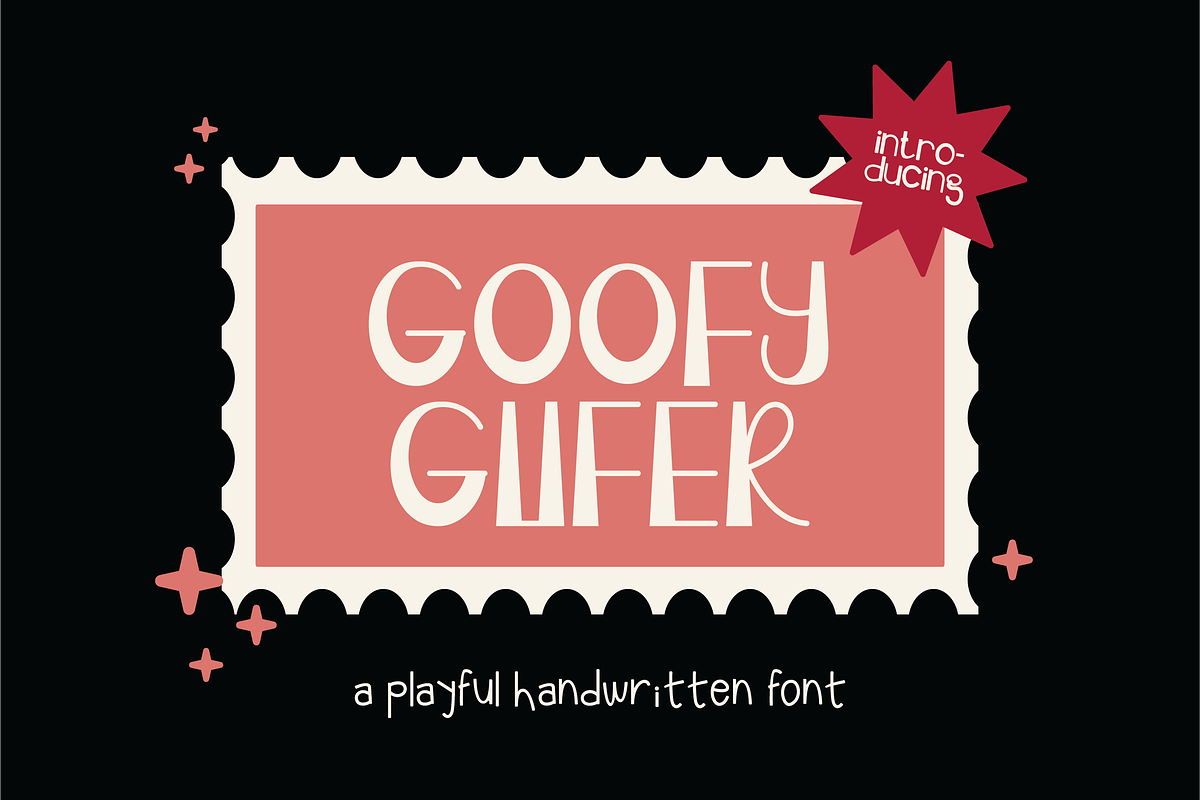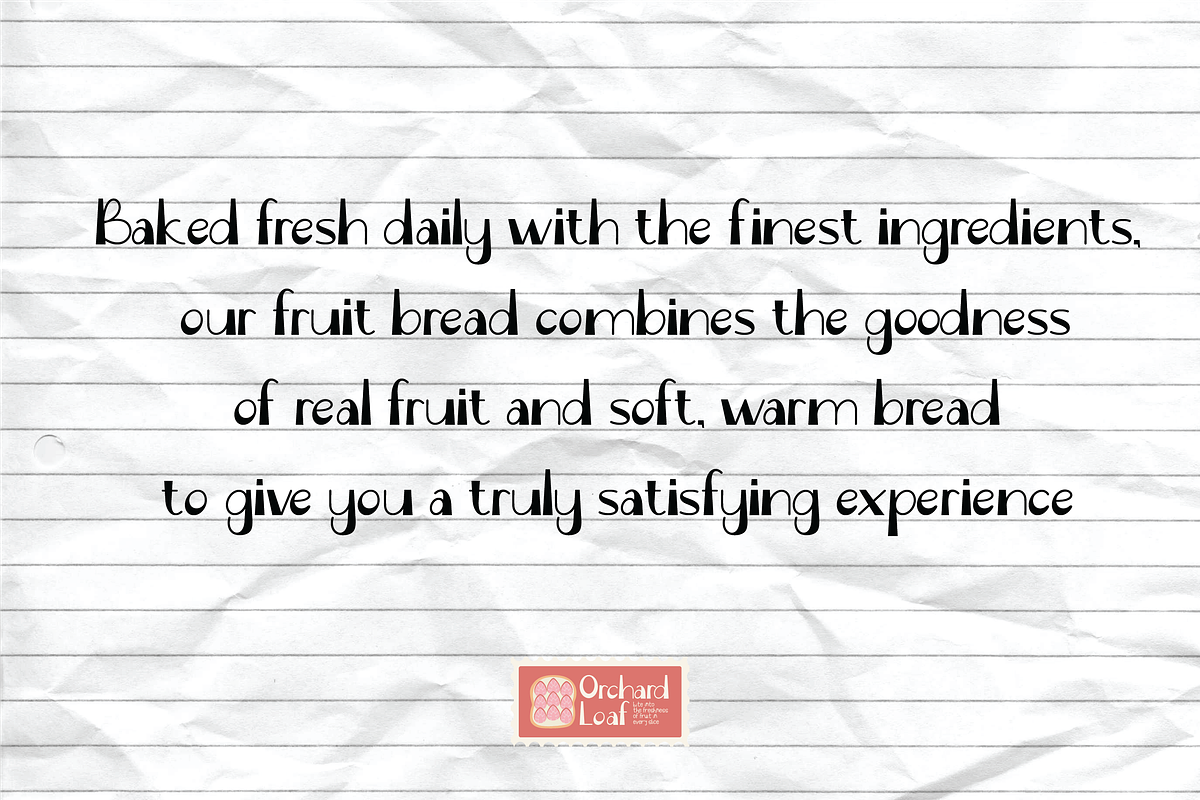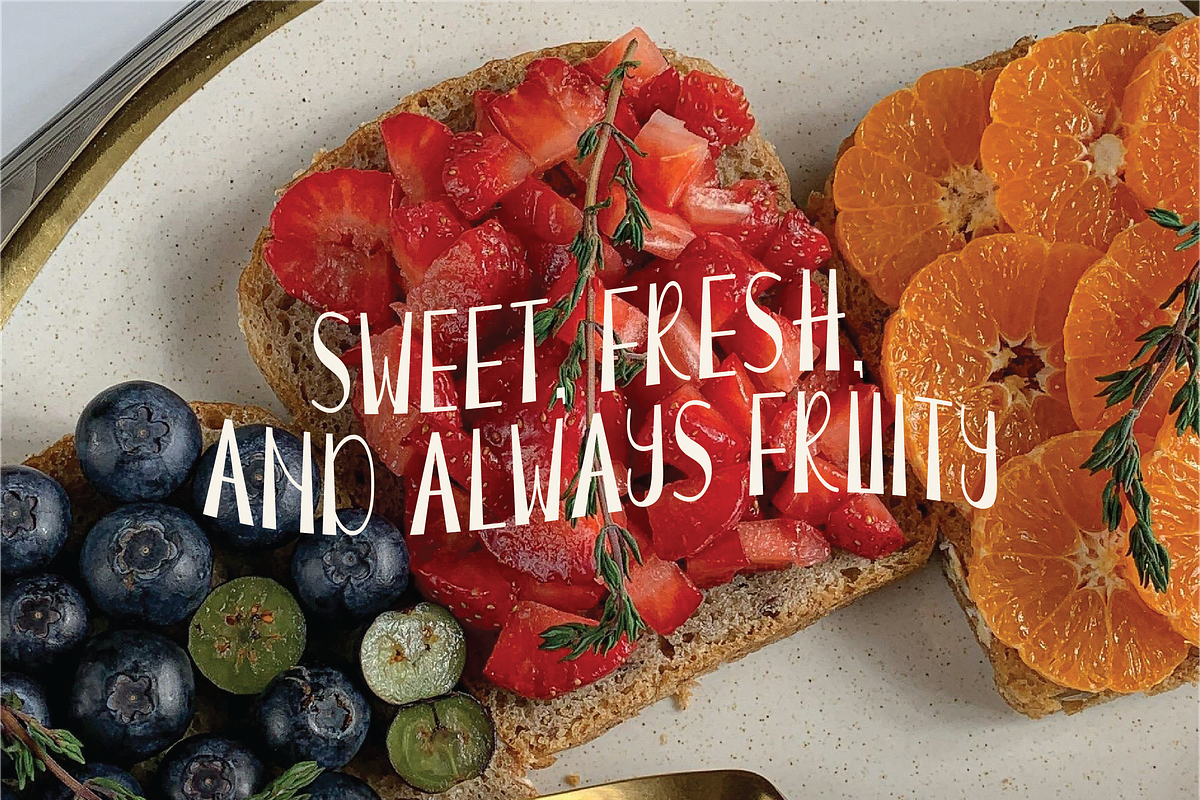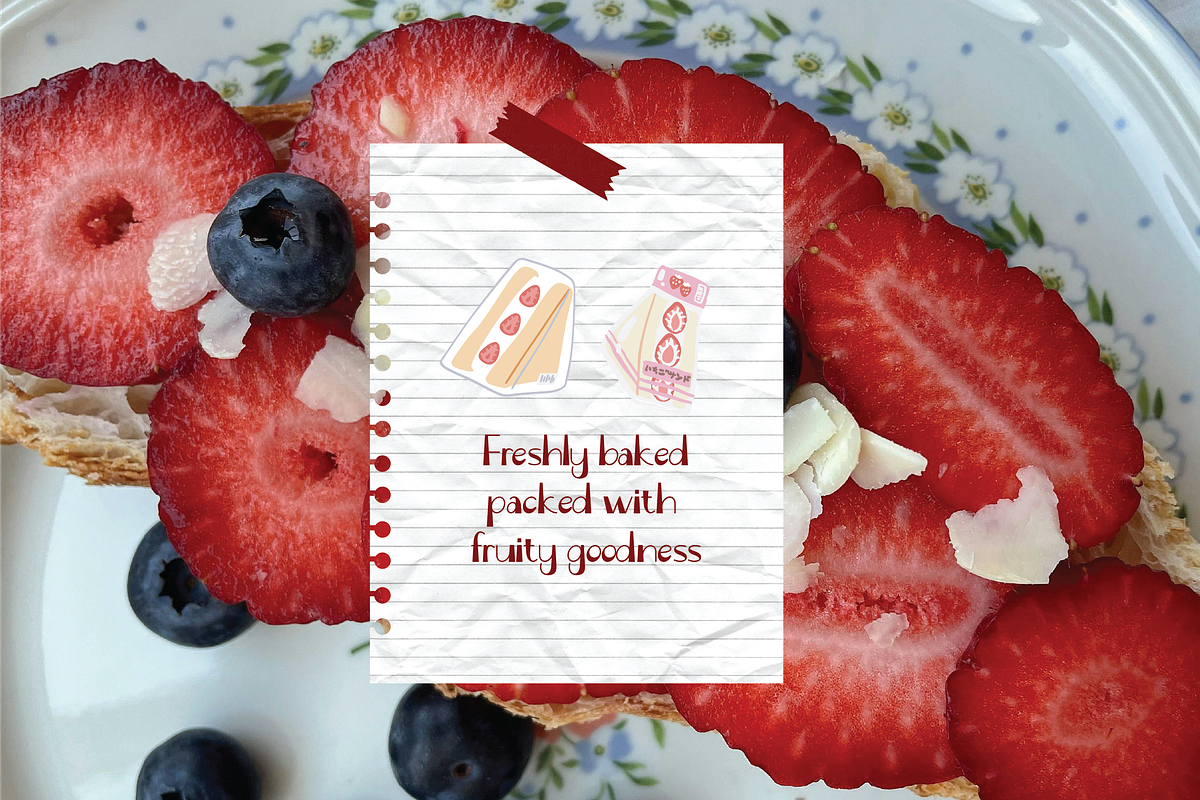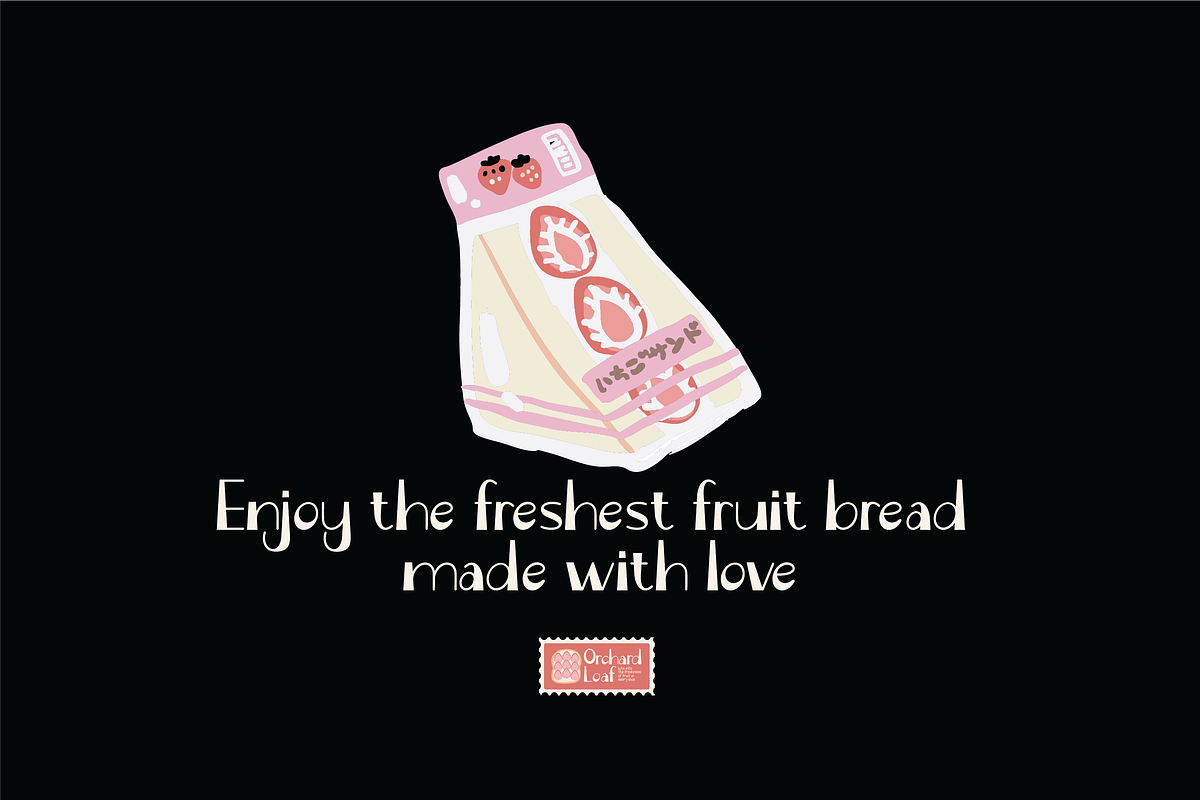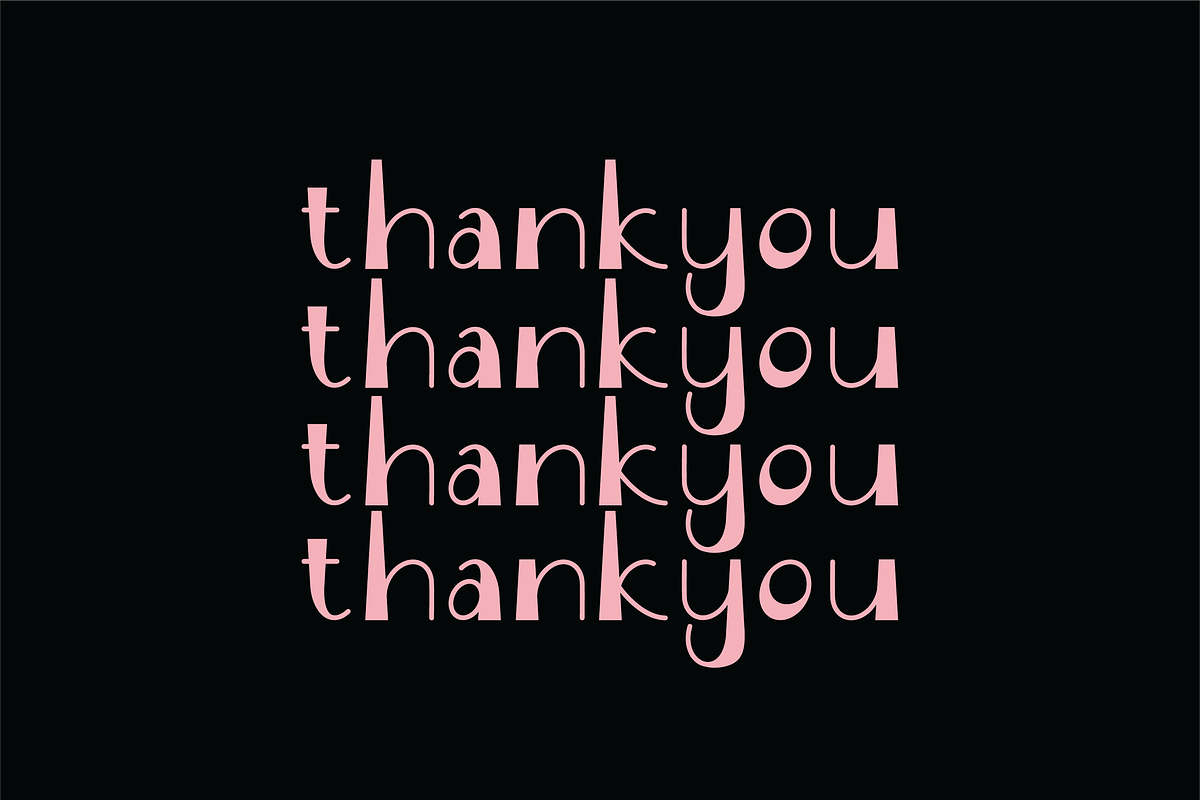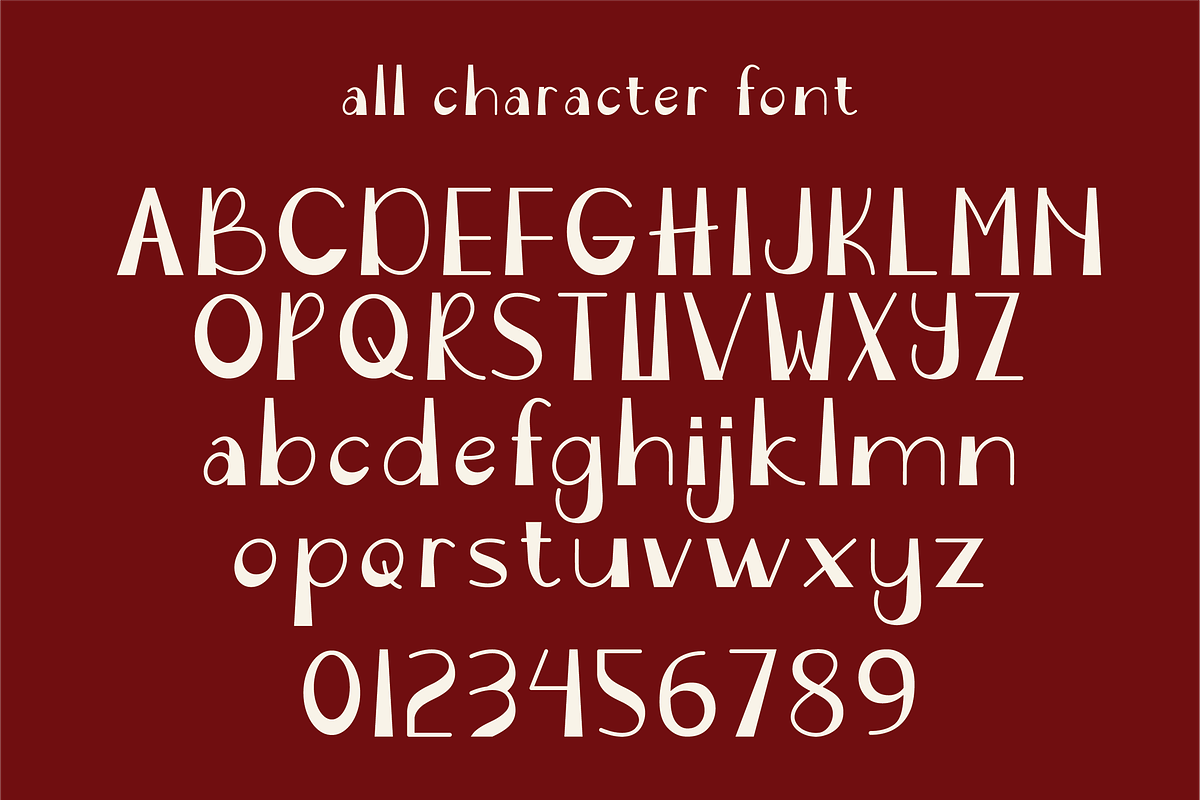
Goofygufer-Playful Handwritten Font
Goofygufer font is playful and quirky, with rounded, bubbly letterforms and a hand-drawn style. The letters are thick and bold, giving it a fun and energetic vibe.